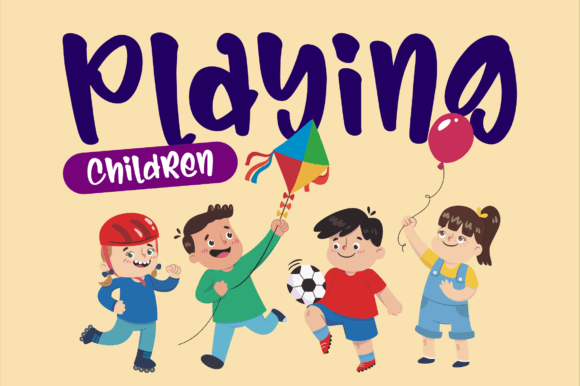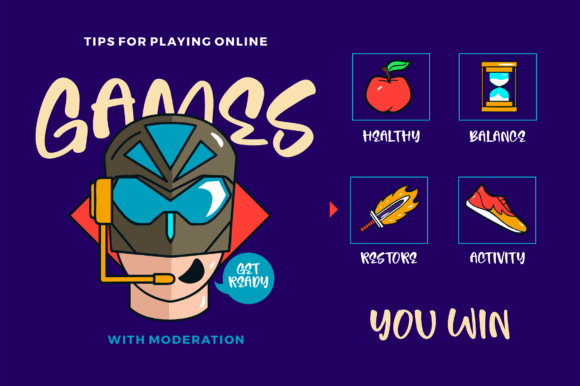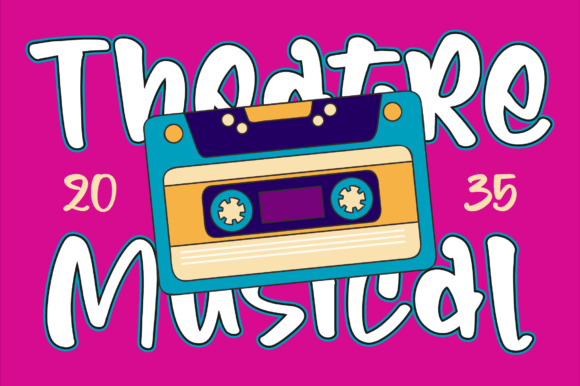
Introduction to Maghist Byfule Font
Have you ever been stuck on a creative project, staring at a blank canvas, searching for the perfect touch to bring your idea to life? That’s where the right design resource can make all the difference. For designers, the quest for the perfect font is an ongoing one, and we’re excited to introduce you to a new addition that’s sure to elevate your projects: the Maghist Byfule Font.
This stunning handwritten display font, crafted by the talented team at Glorytype Studio, is more than just a pretty face. With its high-quality design and transparent background, it’s the perfect choice for any project that requires a touch of elegance and sophistication. Whether you’re working on logos, branding projects, or even product packaging, Maghist Byfule Font is a versatile design resource that’s sure to impress.
Key Features of Maghist Byfule Font
- Maghist Byfule Font is a high-quality design resource ideal for creative projects, offering a unique and stylish aesthetic.
- This font features a transparent background, making it versatile for use on various backgrounds and design elements.
- Maghist Byfule Font is available in a single size, making it suitable for use in a variety of design contexts, from small text to large headings.
- Maghist Byfule Font is a great addition to any designer’s toolkit, offering a creative and stylish element to enhance any project.
Honest Review: Maghist Byfule Font
I recently had the opportunity to work with the Maghist Byfule Font, and I must say, it’s been a game-changer for my creative projects. The font’s high quality and unique design make it an excellent addition to any design resource.
One of the standout features of the Maghist Byfule Font is its transparent background, which allows for seamless integration with any image or design element. This makes it an ideal choice for designers working on complex, multi-layered projects.
Here are some of the things that work well with the Maghist Byfule Font:
- High-quality design that’s perfect for professional projects
- Transparent background for easy integration with other design elements
However, there are a few limitations to be aware of:
- May not be suitable for projects requiring a bold, attention-grabbing font
- Limited character set, which may not be ideal for longer texts
Overall, I’m thoroughly impressed with the Maghist Byfule Font. Its unique design and high-quality construction make it an excellent addition to any design resource. I highly recommend it for designers working on creative projects that require a touch of sophistication and elegance.
Tips for Getting the Most Out of Maghist Byfule Font
Maghist Byfule Font is perfect for creating eye-catching titles, headings, and body text in various design projects, including brochures, posters, and social media graphics.